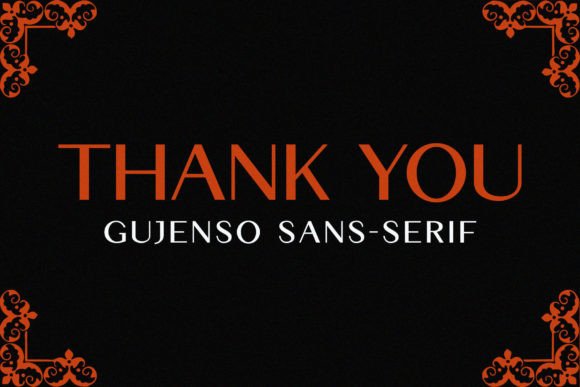
Introduction to Gujenso Font
Have you ever stared at a blank canvas, wondering how to bring your creative vision to life? The blank page can be daunting, but sometimes all it takes is the right tool to spark inspiration. For designers, the perfect font can be the missing piece that elevates a project from good to great. This is where the Gujenso Font comes in – a high-quality, modern sans-serif font that’s about to become your new go-to design resource.
With its elegant and classy design, Gujenso Font is perfect for a wide range of creative projects, from websites and logos to magazines and social media. Whether you’re working on a free download or a paid design project, this versatile font is sure to impress. And with a transparent background, you can rest assured that your design will shine without any distractions.
In this article, we’ll take a closer look at what makes Gujenso Font so special and how it can take your design projects to the next level.
Key Features of Gujenso Font
- High-quality design resource ideal for creative projects, offering a unique aesthetic.
- Features a transparent background, allowing for seamless integration into different design compositions.
- Includes a range of characters, including letters, numbers, and symbols, to support various language requirements.
- Designed with a modern and elegant style, making it suitable for a wide range of creative projects.
- Offers a high-resolution design, suitable for print and digital applications, with a minimum resolution of 300 DPI.
Honest Review: Gujenso Font
I recently came across the Gujenso Font, and I must say it’s a great addition to any designer’s toolkit. As a design resource, it’s perfect for those looking to add a touch of elegance to their creative project.
What works well: ✨ The font is highly customizable, allowing you to tweak its size, color, and even add a transparent background to match your design’s requirements. Its high-quality design makes it suitable for both personal and commercial projects.
Some limitations: ⚠️ The font is a bit limited in terms of font styles, with only a few options available. Additionally, it may not be suitable for very large or complex designs, as it can become difficult to read at larger sizes.
Overall, I’m quite impressed with the Gujenso Font. It’s a great option for designers looking for a free download that’s both stylish and versatile. With its transparent background and high-quality design, it’s a great addition to any design project.
Introduction to Gujenso Font
The Gujenso Font is a high-quality design resource perfect for any creative project. With its unique and stylish design, this font is ideal for adding a touch of sophistication to your work.
Common Use Cases for Gujenso Font
The Gujenso Font is perfect for:
- Creating stylish headings and titles.
- Designing elegant logos and branding materials.
- Adding a touch of sophistication to your social media graphics and advertisements.